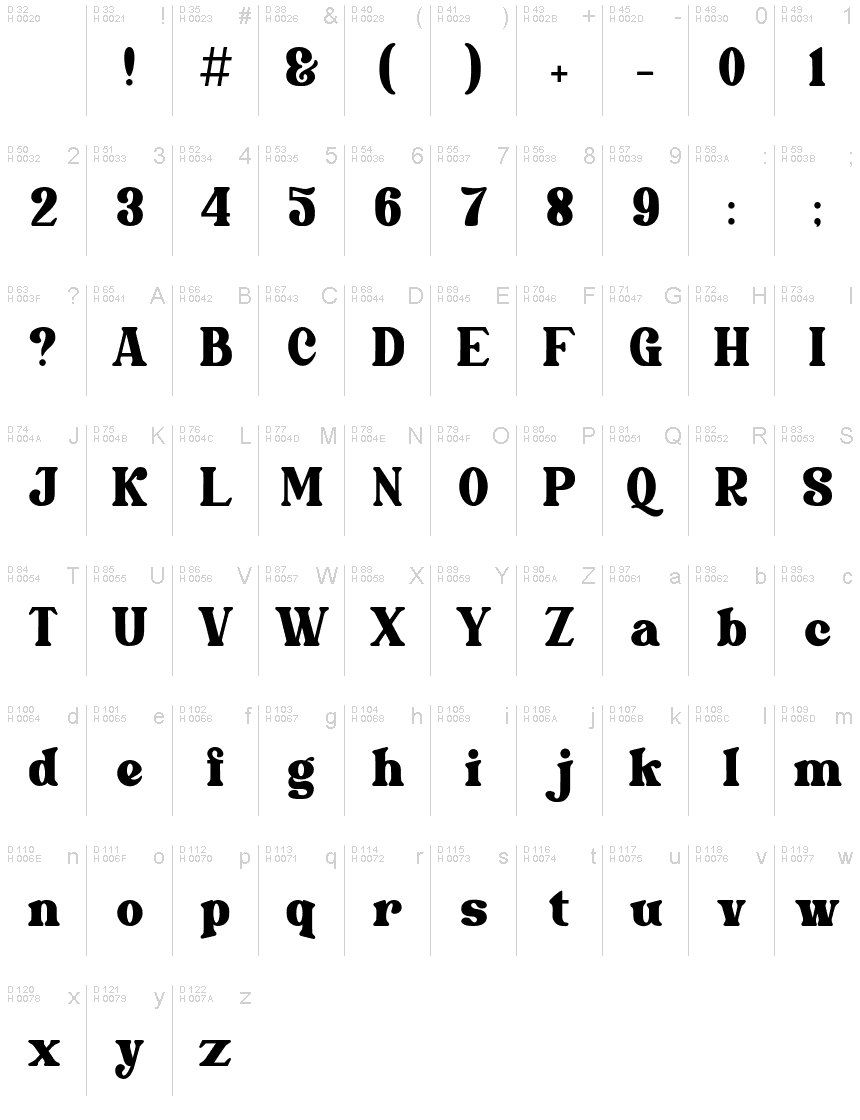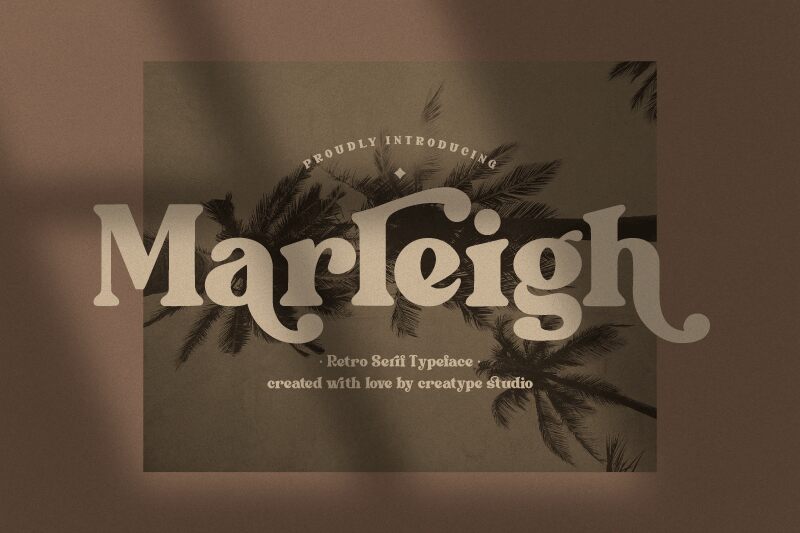
Marleigh Regular
Introducing Marleigh - a bold and retro display font designed by Rian Rahardi. Perfect for creating vintage designs with a touch of modernity, Marleigh is perfect for projects such as logo design, poster making, and apparel branding.